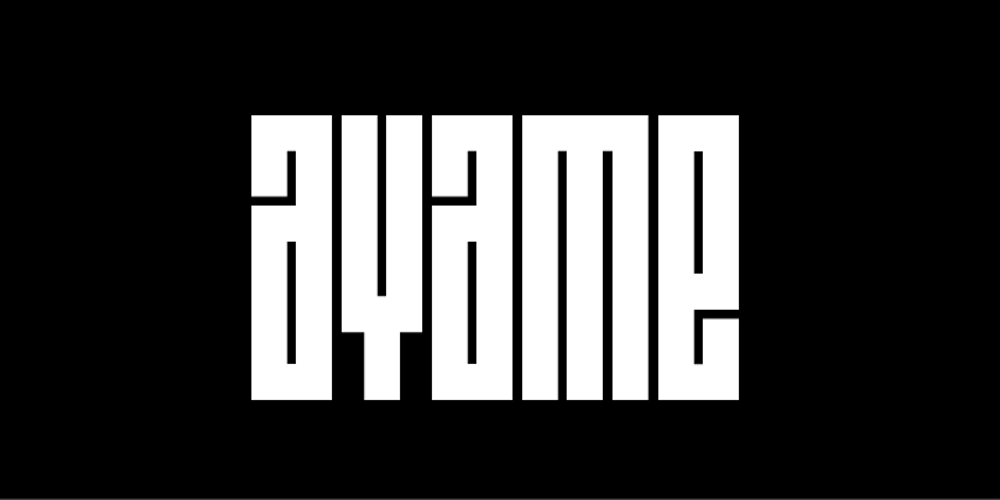
ALT Ayame Font Family was designed by Andreas Leonidou and published by ALT. ALT Ayame contains 6 styles and family package options. Ayame is a display font which looks great on posters, logos, and titles. Ayame is a 6-weight family with a heavy retro look.